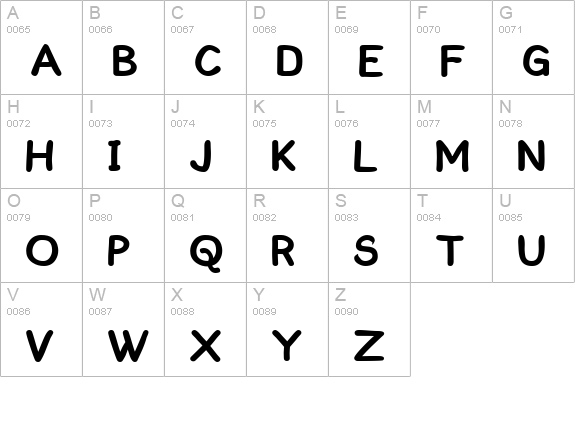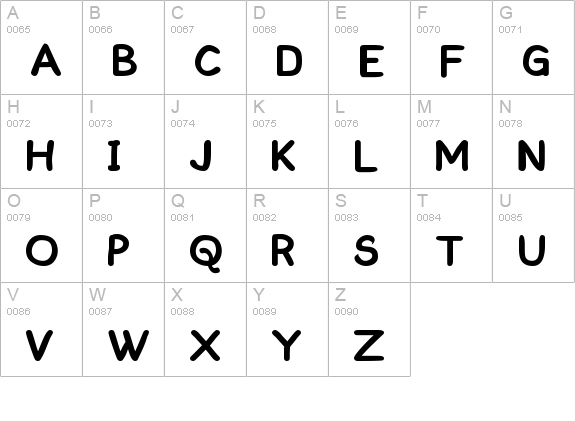
Kronika Font Details
Kronika font is a beautifully crafted typeface that exudes elegance and sophistication. With its clean lines and subtle curves, this font is perfect for a wide range of design projects, from branding to editorial design. The sleek and modern look of Kronika font makes it a versatile choice for both print and digital applications. The best part about Kronika font is that it is completely free to download at FontsMarket.com. This means that you can enhance your designs with this stunning font without any cost. Whether you are working on a personal project or a client's work, Kronika font will add a touch of class and sophistication to your designs. Download Kronika font today from FontsMarket.com and elevate your design projects with this beautifully designed typeface. Unleash your creativity and make a lasting impression with the timeless appeal of Kronika font.